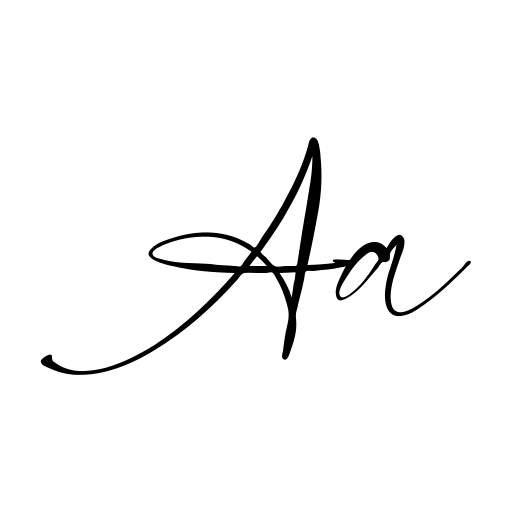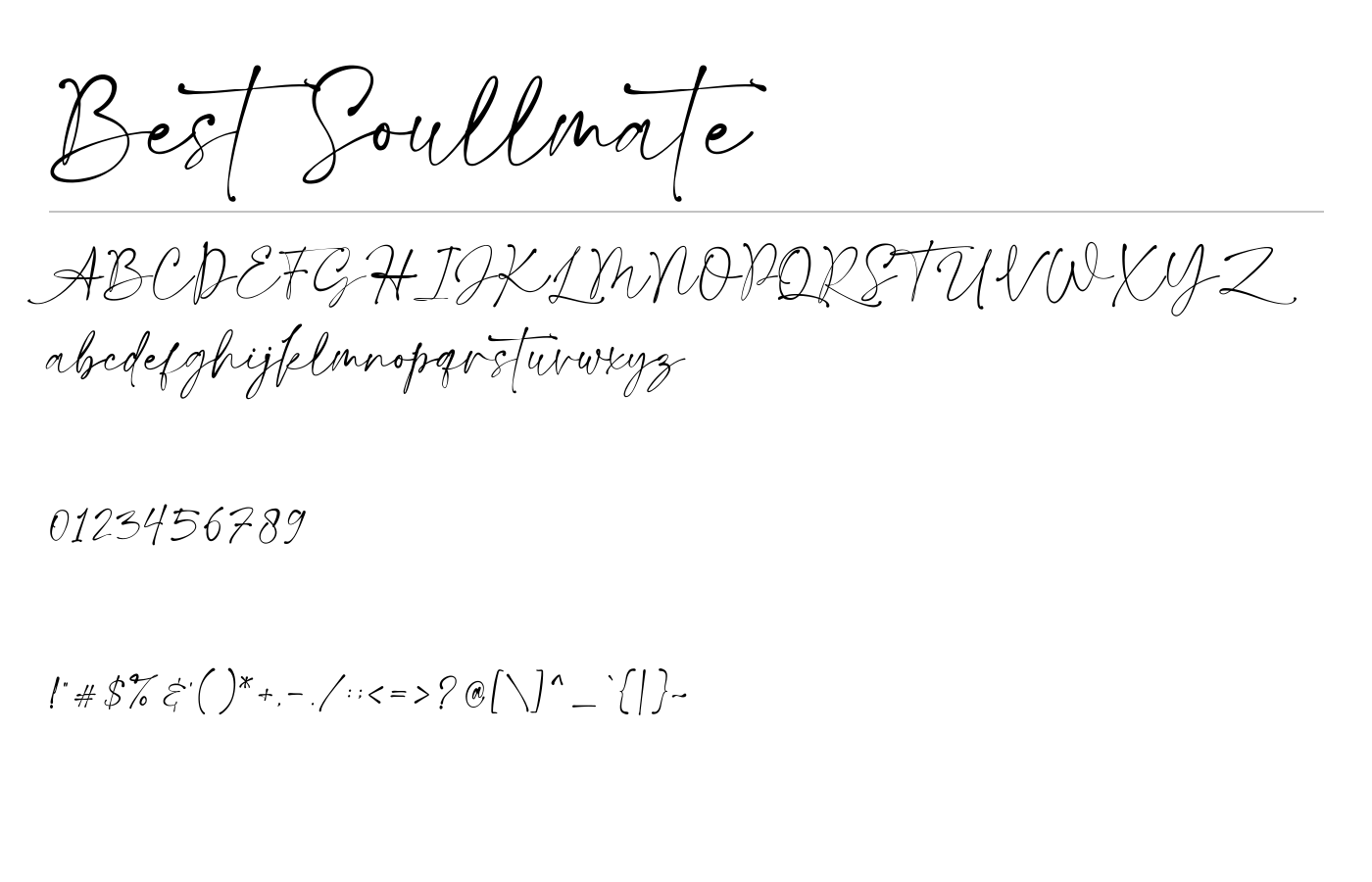
Best Soullmate is a delicate, handwritten script font with a light, airy feel and elegant, flowing strokes. Its thin, graceful letterforms and natural, slightly whimsical style make it perfect for romantic, personal, and creative branding, as well as invitations and greeting cards where a soft, intimate touch is desired. This font shines in designs that call for a modern yet charming handwritten look.
Best Soullmate Font
About Best Soullmate Font
| Font family | Best Soullmate Font |
| Designer | Rizaldi Wandani |